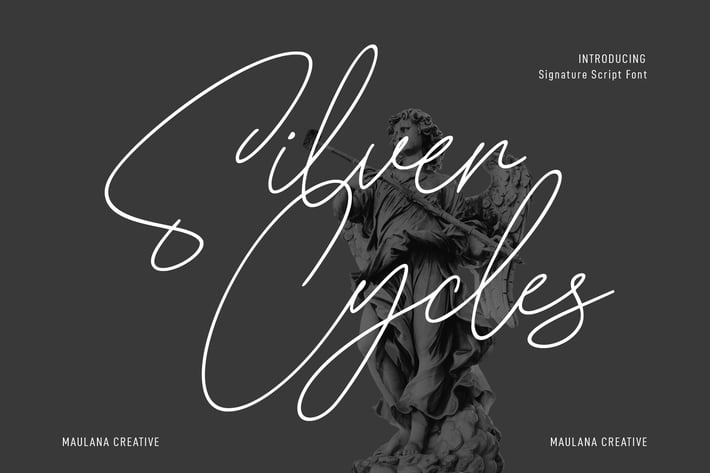
Silver Cycles Signature Script Font
Silver Cycles is a Casual Signature Script font. With light mono-line stroke, slanted condensed and fun character with a lot of ligatures. To give you an extra creative work. Silver Cycles font support multilingual more than 100+ language. This font is good for logo design, Social media, Movie Titles, Books Titles, a short text even a long text letter and good for your secondary text font with sans or serif. Make a stunning work with Silver Cycles font.